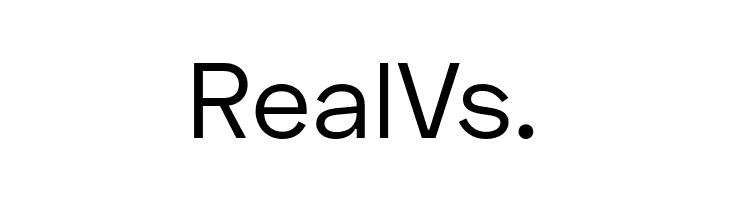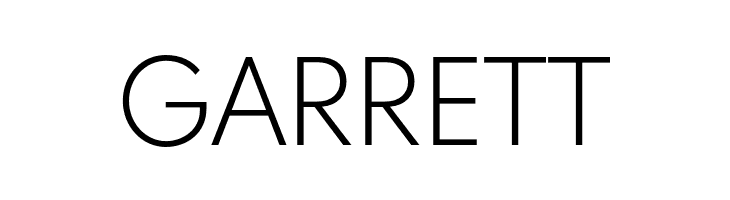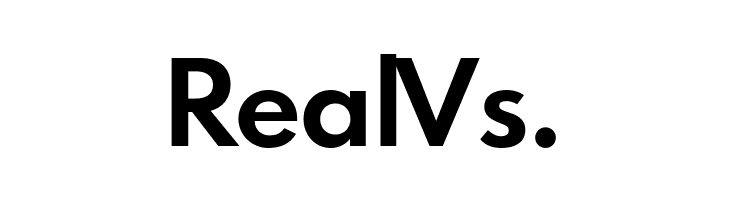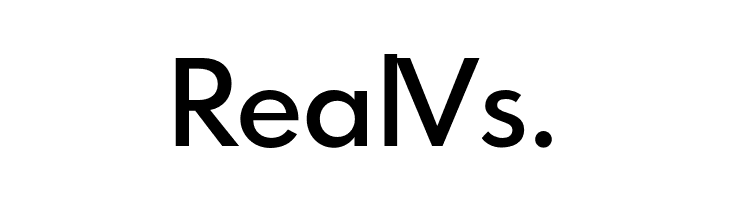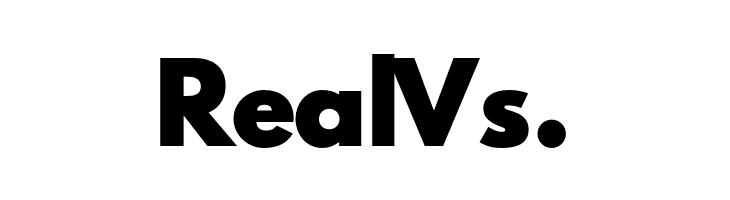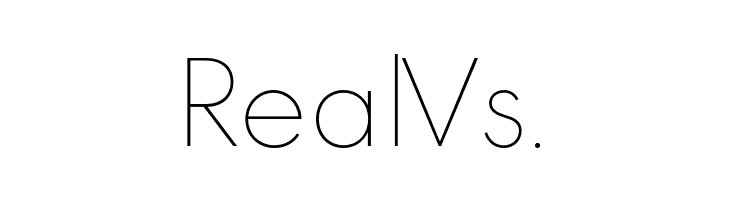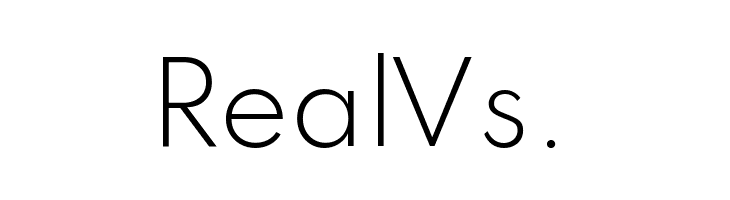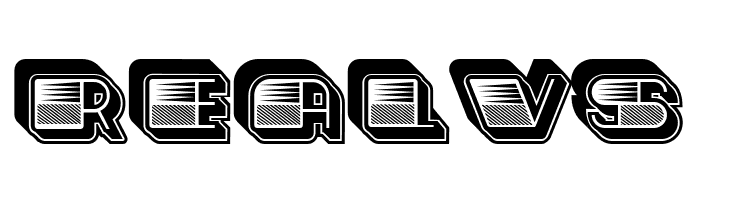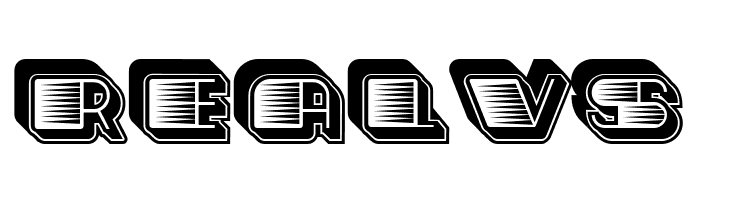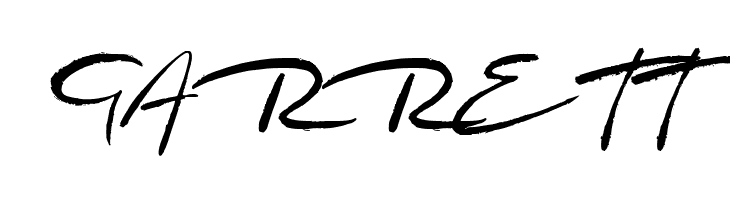
A modern, geometric sans-serif font with clean lines and balanced spacing.
A modern, geometric sans-serif font with a clean and versatile design.
A modern, geometric typeface with a clean and uniform appearance.
A playful, handwritten font with bold, irregular strokes and a casual, whimsical style.
A bold, geometric sans-serif font with strong lines and high contrast.
A bold, geometric sans-serif font with a modern and minimalistic style.
A bold, geometric typeface with uniform strokes and a modern aesthetic.
A clean, modern sans-serif font with a geometric structure and minimalist aesthetic.
A modern, geometric sans-serif font with a clean and professional appearance.
A thin, minimalist font with clean lines and balanced spacing.
A modern, condensed sans-serif font with a light weight and tight spacing.
A modern, condensed, light italic font with clean lines and a sleek design.
A modern, expanded sans-serif font with light weight and low contrast.
A modern, expanded, light italic font with a sleek and airy design.
An ultra-light, extra-expanded font with a sleek, modern design.
A modern, extra expanded, light italic font with a sleek and elegant style.
A modern, light, sans-serif font with clean lines and balanced spacing.
A sleek, modern, and slightly italicized font with a clean, minimalist design.
A classic serif font with elegant, thin strokes and high contrast.
A refined, light, and elegant italic serif font with smooth curves and sharp serifs.
A bold, futuristic font with a 3D effect and dynamic inner detailing.
A bold, futuristic font with a 3D effect and textured interior lines.
A bold, futuristic font with a 3D effect and textured interiors.
A sophisticated, high-contrast serif font with elegant, elongated letterforms.
A dynamic, handwritten font with expressive strokes and a fluid style.
A playful, spooky font with dripping, melting shapes.
A clean, modern sans-serif font with geometric letterforms and even stroke widths.
A bold, hand-drawn font with an expressive, brush-like texture.
A playful, bubble-like font with thick outlines and rounded characters.